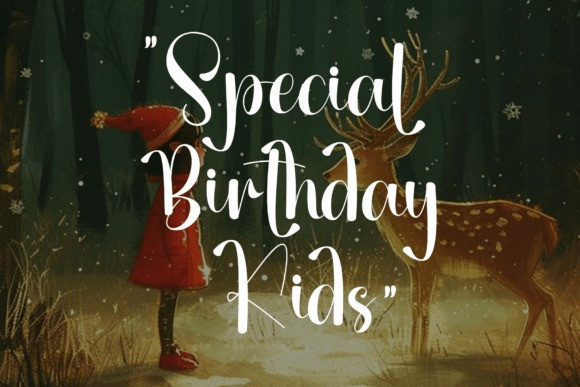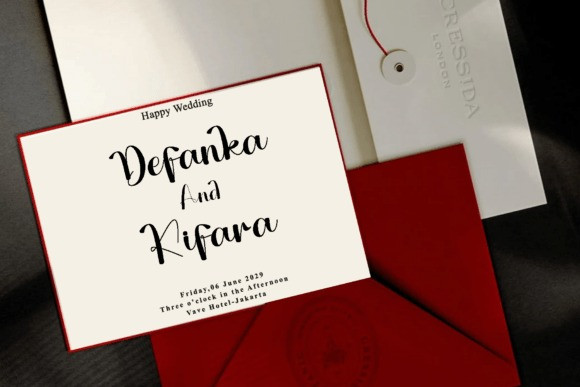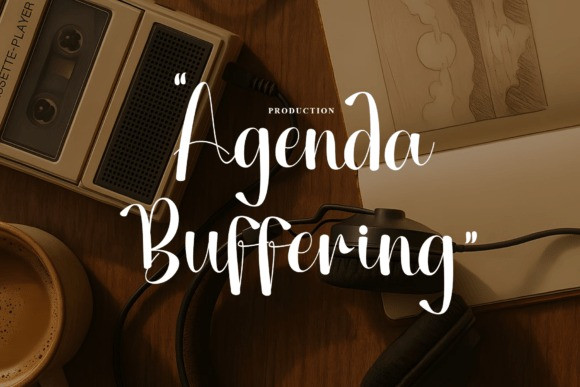
Agenda Buffering Handwriting Font
Agenda Buffering Handwriting Font is a graceful, modern, and stylized handwritten script font. It features smooth, fluid strokes and lovely ornamental curves, giving it a feminine, professional, and slightly romantic touch. The consistent weight and clean connections ensure excellent legibility.
This font is perfect for custom sublimation designs, boutique branding, personalized gifts, custom stationery, and any project that needs a clean, highly stylized, and beautifully functional handwritten script.